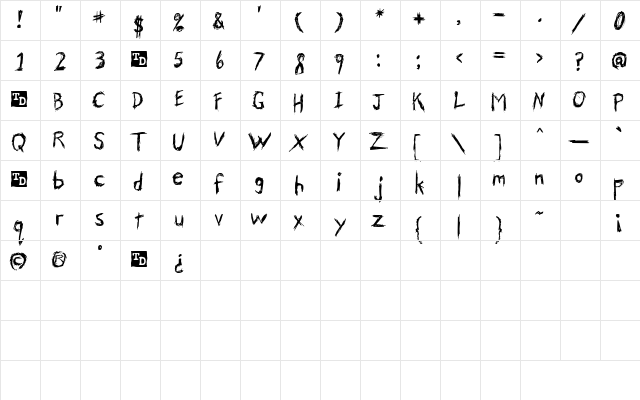
Skribler Trial Version Regular
Design Context for Skribler Trial Version Typeface
Skribler Trial Version is a composed and adaptable typeface that performs quietly and consistently across a wide range of design contexts.